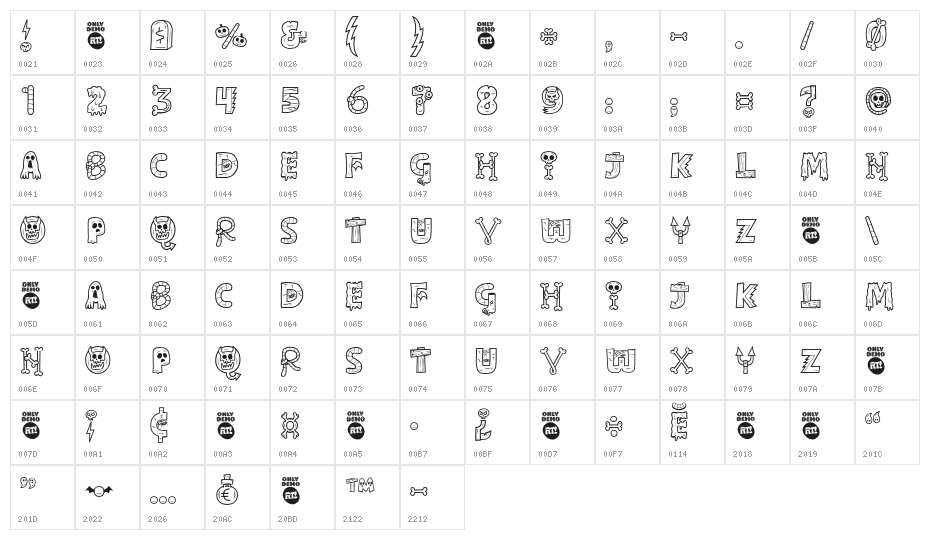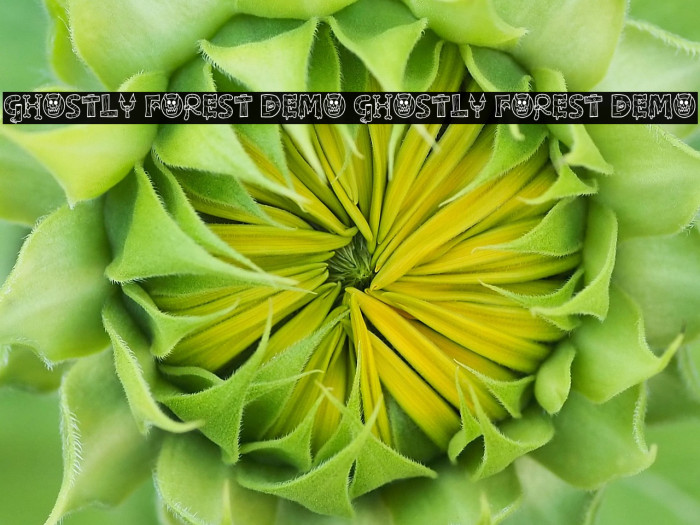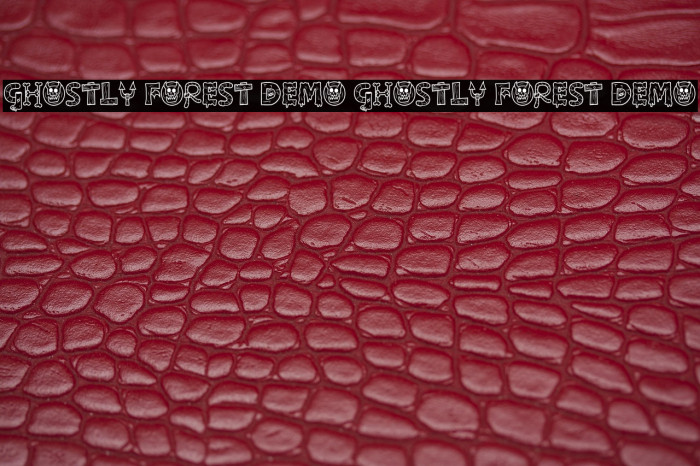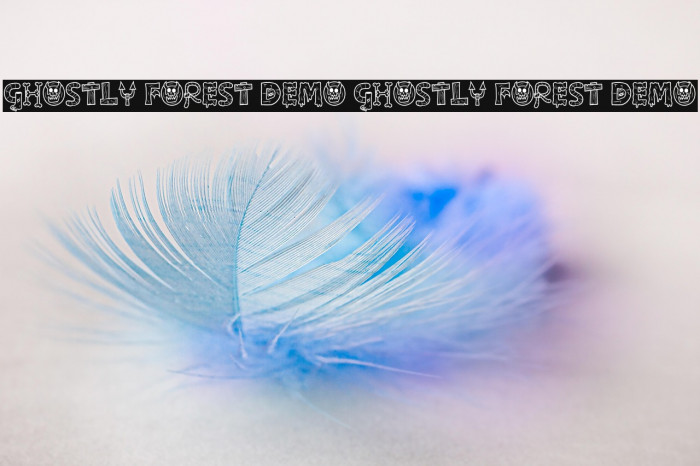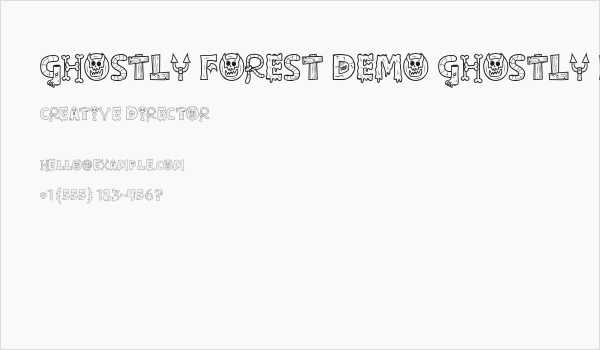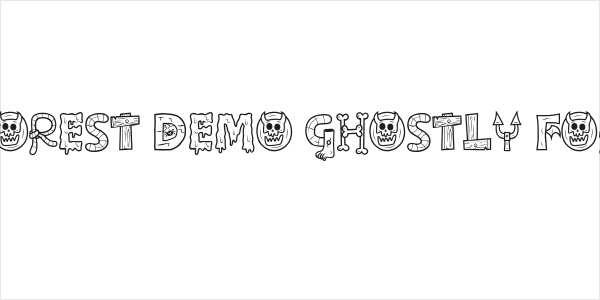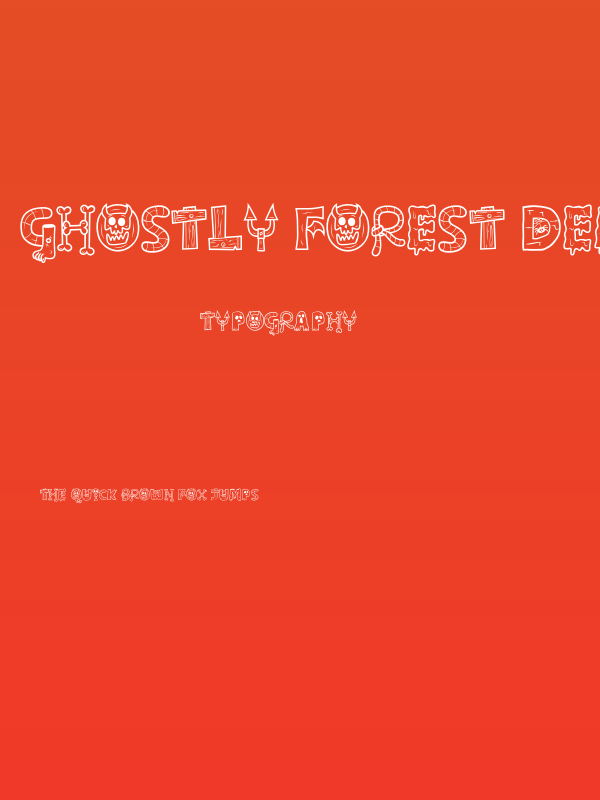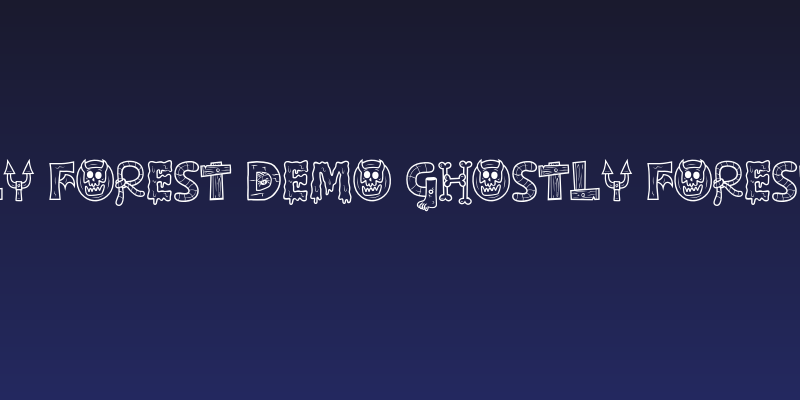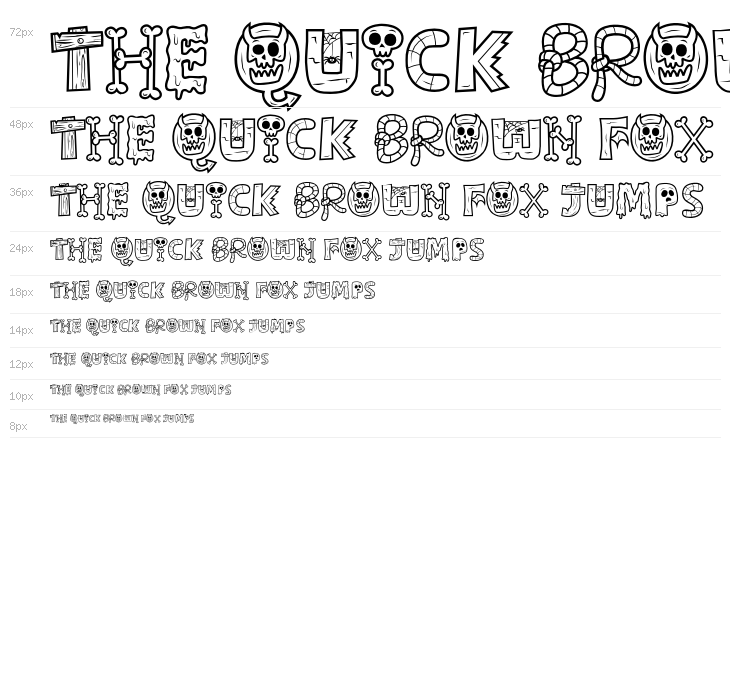
Ghostly forest Demo Font
Ghostly forest Demo Description
This font is a playful and spooky decorative typeface, featuring characters that incorporate Halloween-themed elements such as ghosts, skulls, bones, and lightning bolts. Each letter and number is uniquely designed with intricate details that evoke a sense of fun and eeriness, making it perfect for themed events. The font is highly stylized, with a hand-drawn appearance that adds to its charm. The special characters further enhance its whimsical and ghostly theme, making it ideal for creative projects that require a touch of the macabre.
| Proposed Projects | Ideal for Halloween invitations, themed party decorations, children's book covers, and creative posters. |